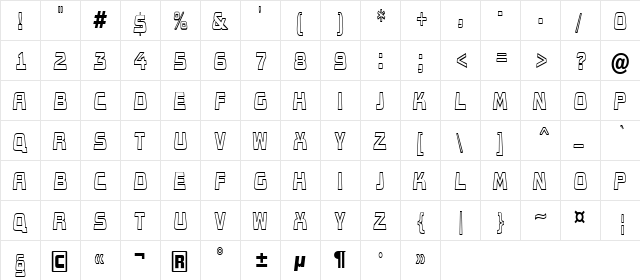
a_ConceptoTitulLdBkSh Regular
Design Context for a_ConceptoTitulLdBkSh Typeface
a_ConceptoTitulLdBkSh offers clean, dependable letterforms without strong stylistic allegiance, making it a practical choice for designers who need flexibility.